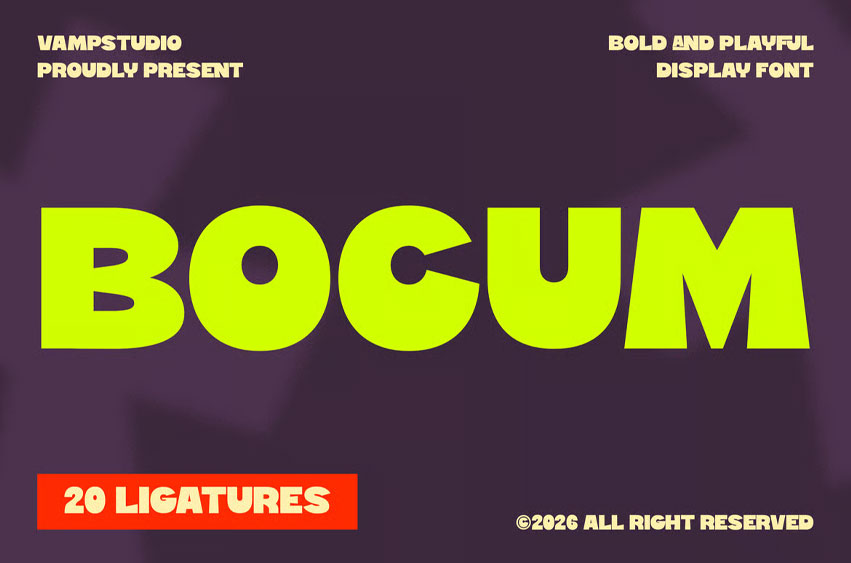
Bocum Font is a bold retro display sans font designed to make a strong visual impact. Inspired by vintage signage and modern retro aesthetics, Bocum combines chunky letterforms with smooth playful curves to create energetic and memorable typography.
Perfect for poster design, food packaging, album covers, logo creation, advertising campaigns, and social media graphics.
• Bold retro display style
• Uppercase & lowercase
• Numbers & punctuation
• Great for posters & branding
• Stylish vintage feel